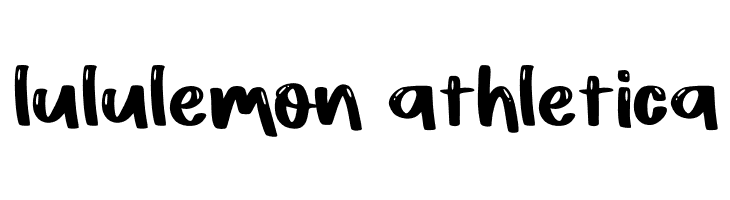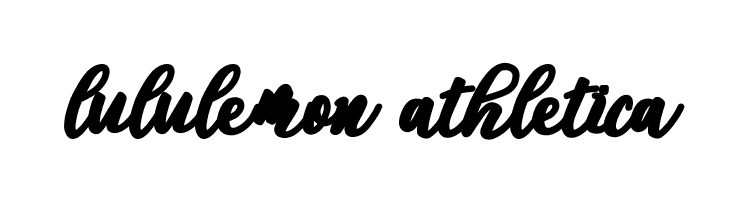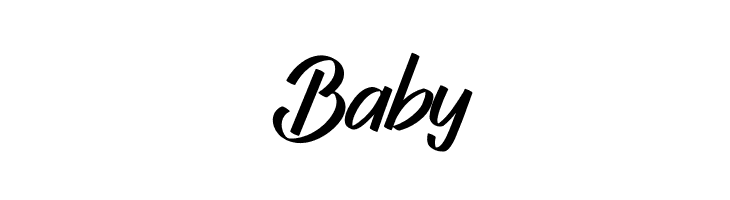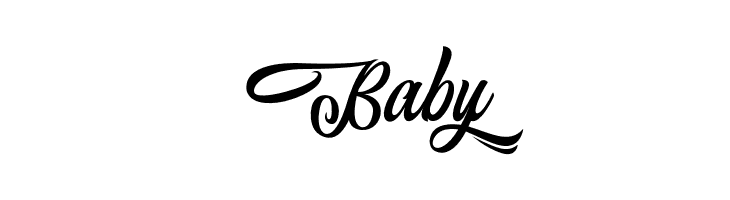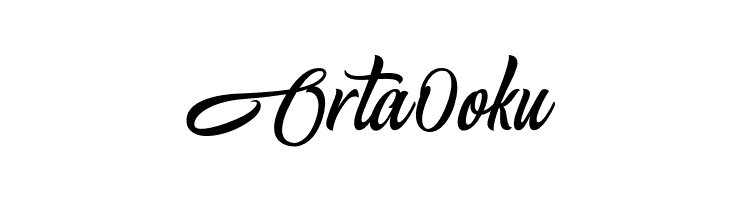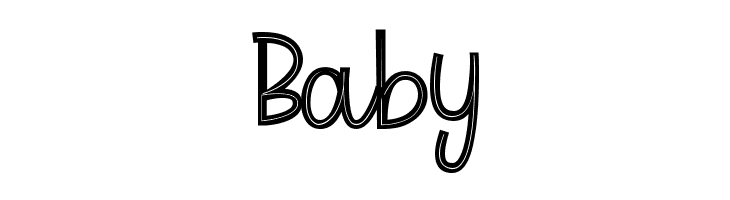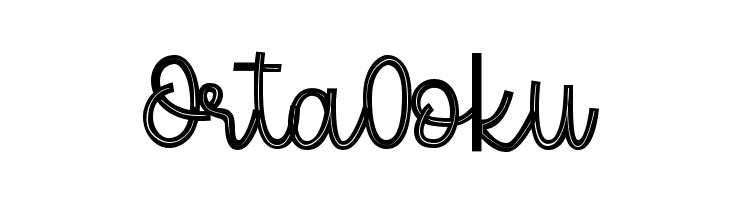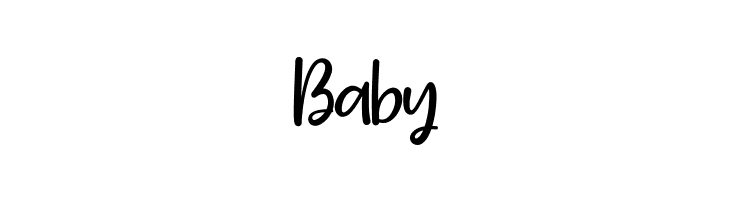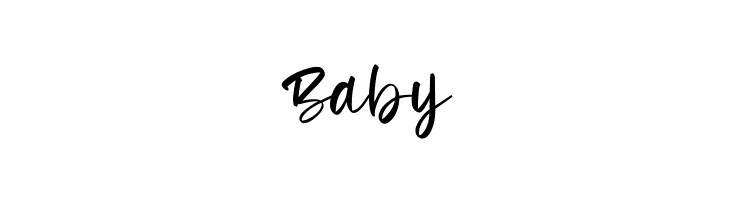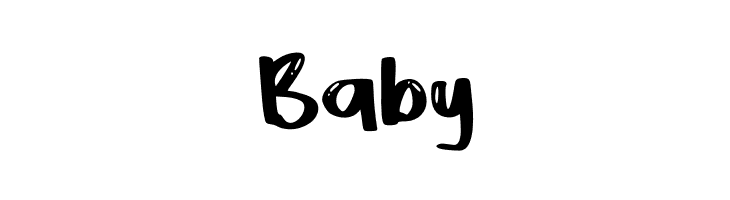
A playful, hand-drawn script font with whimsical embellishments.
A bold, playful handwritten font with a lively and energetic style.
A bold, flowing script font with a modern and dynamic style.
A decorative script font with elegant, flowing letterforms and ornate details.
A bold, modern script font with flowing, connected letters.
A playful, handwritten font with smooth, rounded strokes and a casual vibe.
A playful, handwritten-style font with bold, rounded characters.
A lively and expressive handwritten font with fluid, dynamic strokes.
A bold, expressive script font with dynamic slant and high contrast.